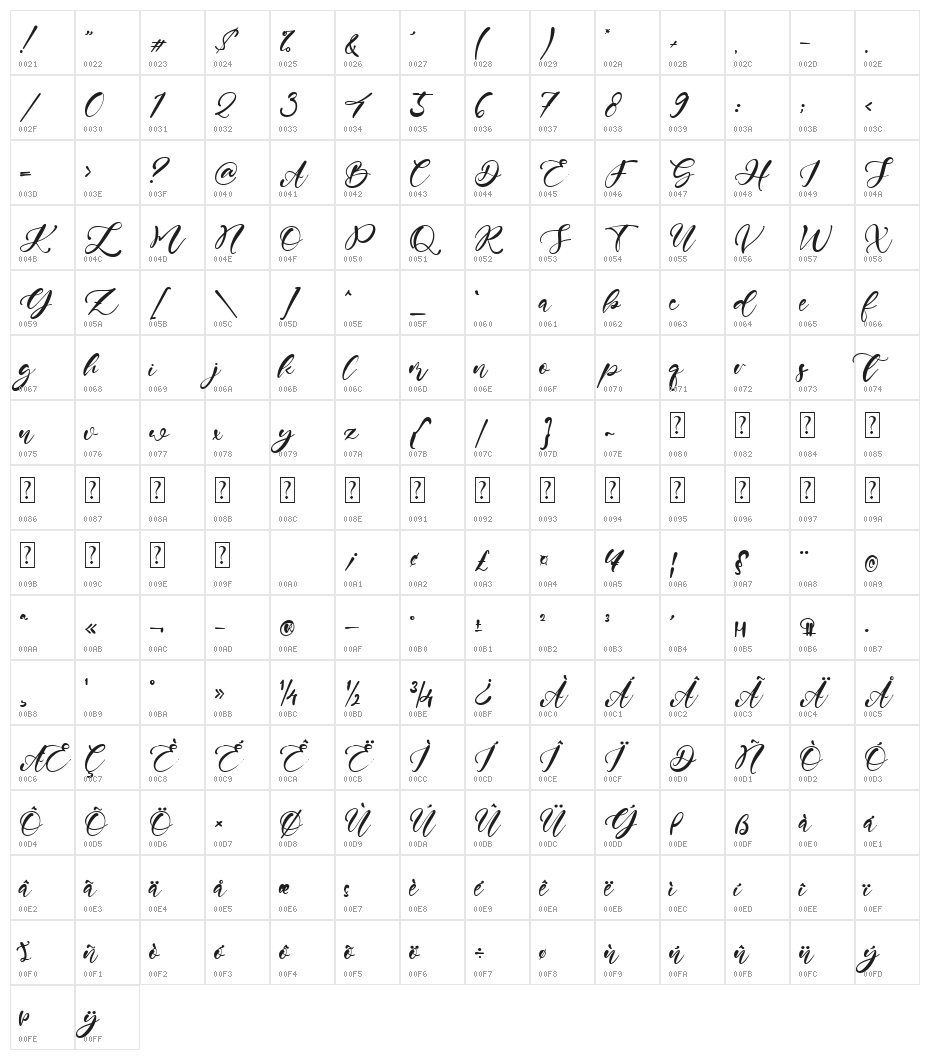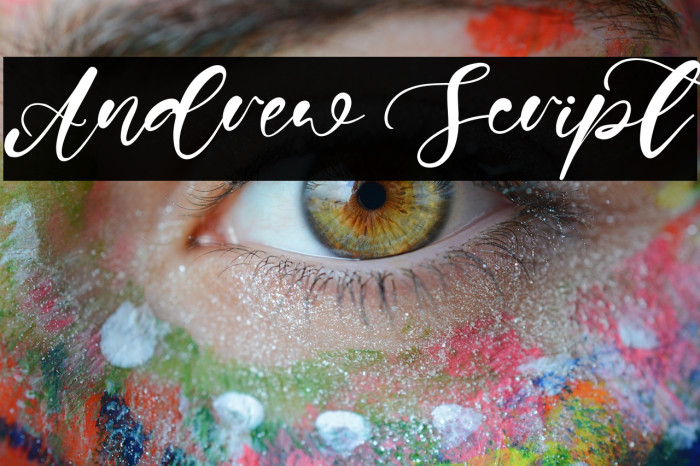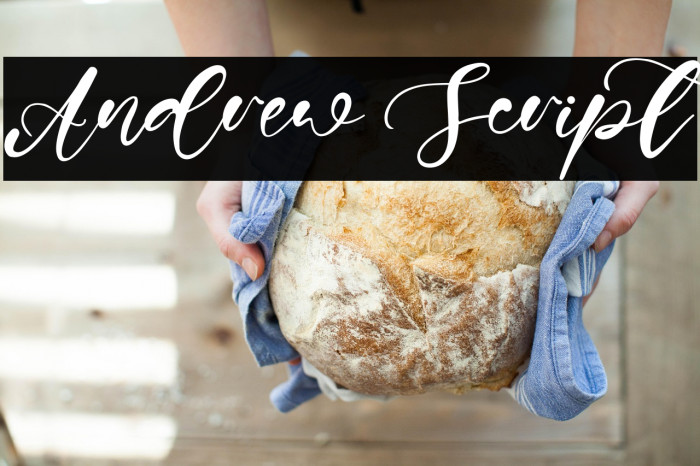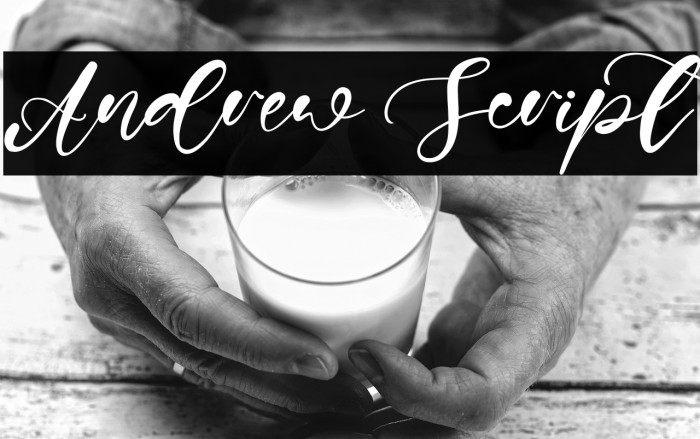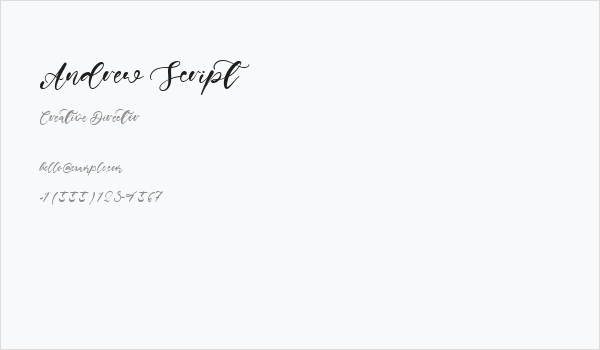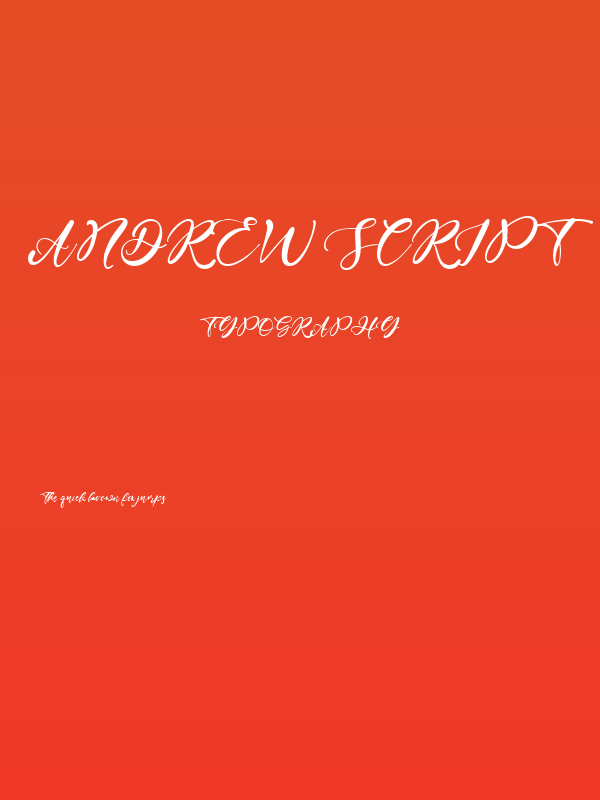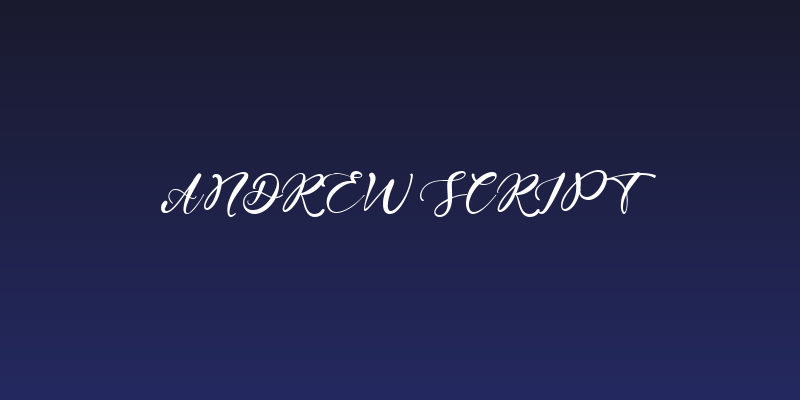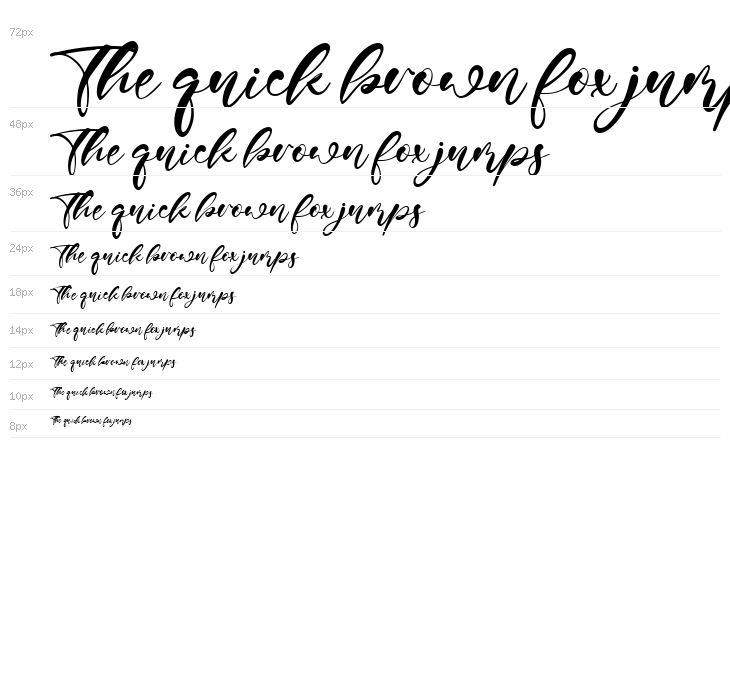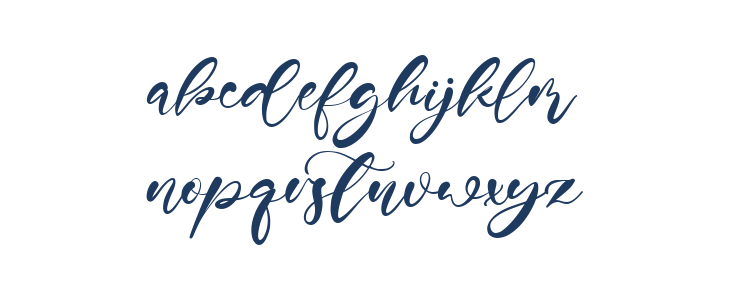
Andrew Script Font
Andrew Script Description
This elegant script font features a flowing, cursive style with smooth, connected strokes that emulate the fluidity of handwriting. The uppercase letters are ornate and slightly larger than the lowercase, which are more understated yet still maintain the script's graceful curves. Numbers and special characters are designed to match the overall aesthetic, ensuring consistency across all elements. The font's design is both sophisticated and approachable, making it suitable for a variety of creative applications. Its balanced weight and moderate contrast in stroke thickness contribute to its readability while maintaining a decorative flair.